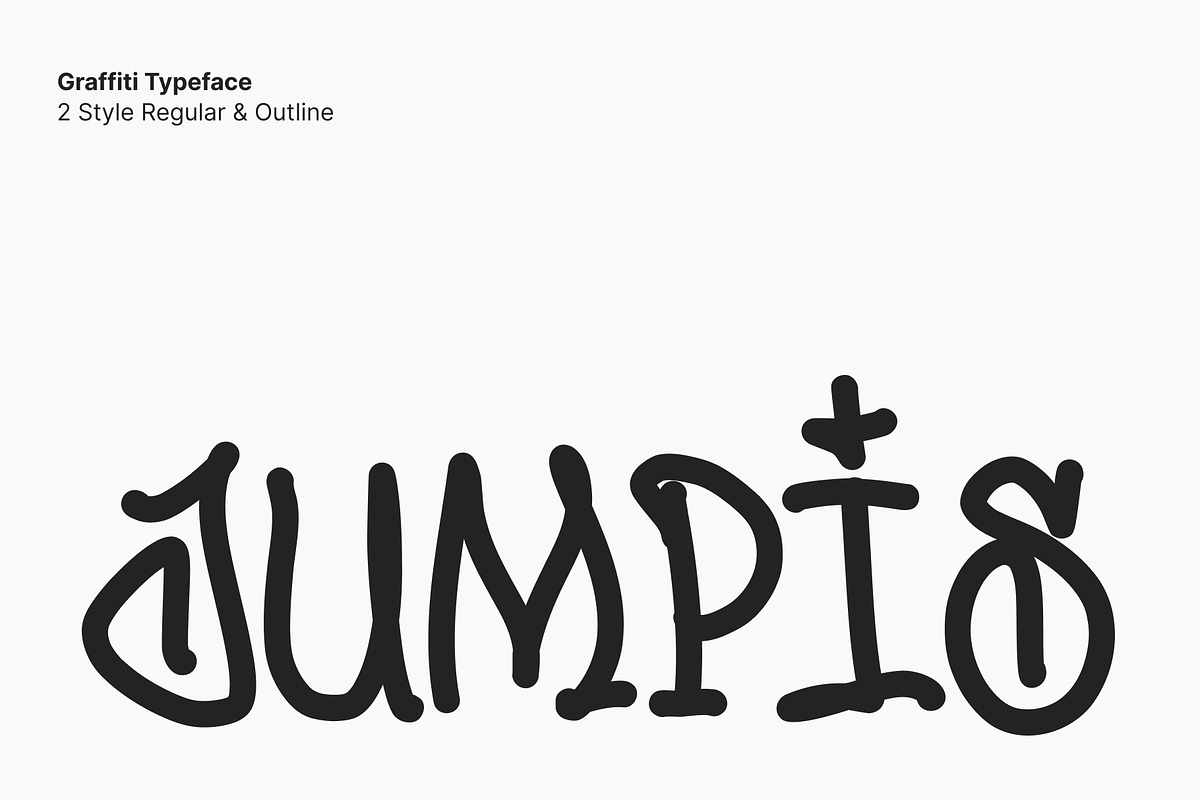
You must purchase this font for commercial use. However, you can download Jumpis Graffiti Typeface Free Download for testing purposes. Jumpis is a bold and dynamic graffiti-inspired font designed to bring an urban, artistic vibe to your designs. With its rough, hand-drawn edges and expressive letterforms, this font is perfect for street art, logos, posters, social media content, and any project that requires a rebellious, creative touch.
The gritty texture and free-flowing style of Jumpis Graffiti Typeface make it ideal for designs that want to capture the energy and creativity of street culture. Whether you're working on an urban brand, a music event poster, or a creative marketing campaign, this font will add a unique, impactful style to your typography.